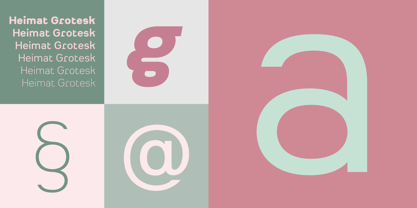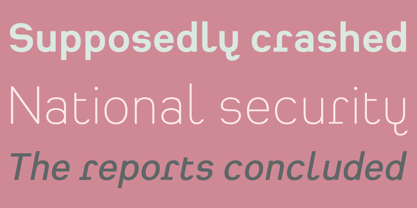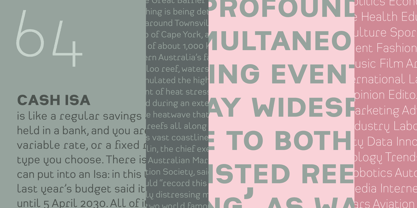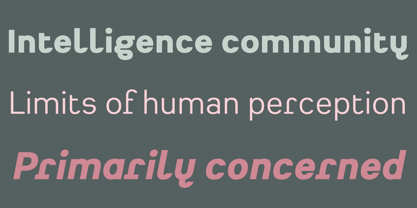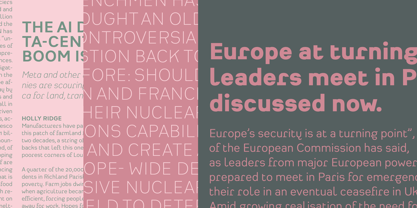
Heimat™ Grotesk
by Atlas Fonts
The Heimat Grotesk Font Family was designed by Christoph Dunst and published by Atlas Fonts. Heimat Grotesk contains 12 styles and family package options.
Heimat Grotesk is the grotesque typeface family within the Heimat Collection, also containing Heimat Didone, Heimat Display, Heimat Mono and Heimat Stencil. Heimat Grotesk is a legible typeface family designed for contemporary typography, especially for use in headlines and on posters, but also for reading purposes. It combines an idiosyncratic appearance with the feeling of a grid-based letter construction of the late 20s. Since the design might be too extreme for some applications, Heimat Grotesk character set provides two alphabets, the regular one plus an alternate design that comes across as less suspenseful. Heimat Grotesk [732 glyphs] comes in six weights and contains an extra set of alternate glyphs, many ligatures, lining [proportionally spaced and monospaced], hanging [proportionally spaced and monospaced], positive and negative circled for upper and lower case, superior and inferior, fractions, extensive language support and many more OpenType features.